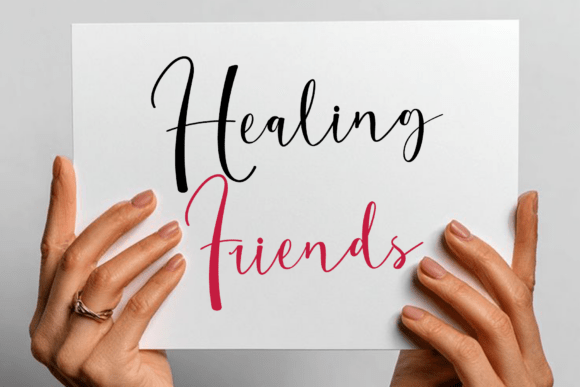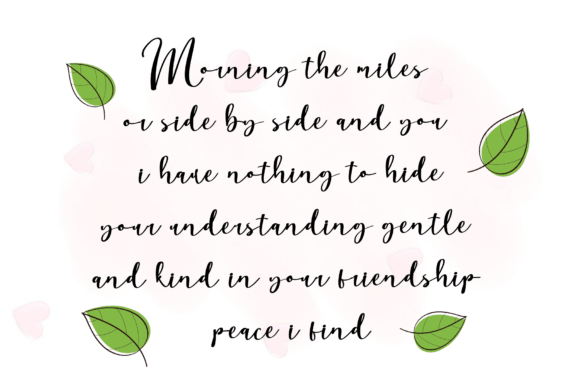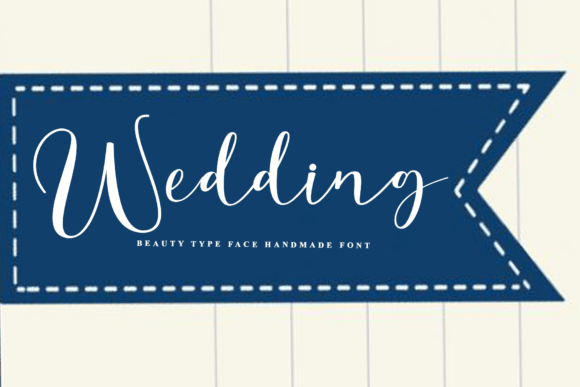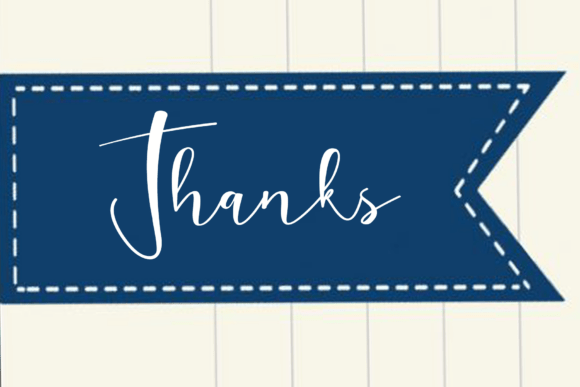
Introduction to Questions Font
As a designer, have you ever found yourself stuck in a creative rut, searching for the perfect font to elevate your project? I know I have. It’s that moment when you’re pouring your heart and soul into a design, and the right typography can make all the difference. That’s where Questions Font comes in – a beautiful, handwritten font that adds a touch of elegance to any creative project.
| 👤 Author | Sansana |
With its unique, handcrafted feel, Questions Font is a valuable resource for designers looking to add a personal touch to their work. Whether you’re creating a logo, branding materials, or a stunning quote, this font is sure to make your design stand out. And the best part? It’s available for free download, making it an accessible design resource for creatives of all levels.
Key Features of Questions Font
- Unique characteristics include a clean and modern aesthetic, making it ideal for digital and print projects.
- Supports a wide range of languages, making it a versatile design resource.
- Designed to be highly legible, even at small font sizes, making it perfect for use in presentations, infographics, and other visual content.
Honest Review: Questions Font
I recently stumbled upon the Questions Font, a unique and intriguing design resource. The font’s versatility and creative possibilities make it a valuable addition to any project.
- ✨ The Questions Font offers a high-quality, elegant design that is perfect for creative projects.
- ⚠️ The font may not be suitable for projects that require a large font size, as it can become distorted.
Overall, I’m impressed with the Questions Font’s design and versatility. It’s a great resource for designers looking to add a unique touch to their creative projects. With a little experimentation and patience, you can unlock the full potential of this high-quality design resource.
Tips for Getting the Most Out of Questions Font
For the best results, use Questions Font on a transparent background to create a clean and professional design. You can also experiment with different font sizes and colors to add visual interest to your project.
Questions Font is a versatile design resource that can be used in a variety of creative projects, including presentations, posters, and infographics. Its high-quality design makes it an ideal choice for professional and personal projects alike.
Compared to Questions Font, Alex Brush has a more refined and polished appearance, making it suitable for formal events and presentations.
Carolyna Pro has a more contemporary feel than Questions Font, making it suitable for modern and trendy projects.
Compared to Questions Font, Great Vibes has a more energetic and dynamic appearance, making it suitable for projects that require a sense of excitement and enthusiasm.